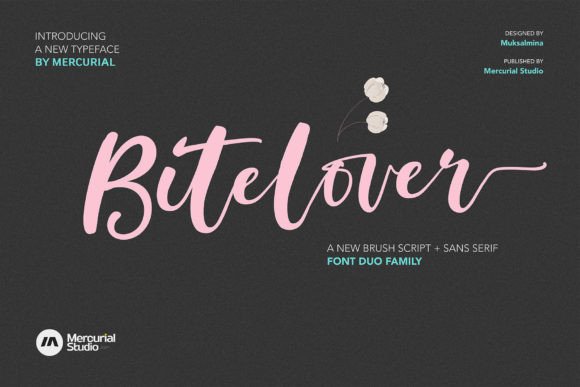
The Designer’s Delight: A Deep Dive into Bitelover Font
I’ll never forget the frustration of working on a design project, hours spent perfecting every detail, only to realize that the font I chose wasn’t quite right. The client wanted something modern, yet charming; elegant, yet approachable. If you’re a designer, crafter, or creative hobbyist, you’ve likely been there too. That’s when I stumbled upon Bitelover, a duo font that has become my go-to for many projects. In this article, I’ll share my experience with Bitelover, its features, and how to make the most of it in various design platforms.
First Impressions: What I Love About Bitelover
Bitelover is a modern and charming duo font that strikes the perfect balance between being too thin and too thick. Its exclusive design enhances the beauty of your design ideas, making it perfect for a wide range of projects. Here are some of the things I love about Bitelover:
- ✨ Balanced and elegant design: Bitelover’s unique blend of modernity and charm makes it suitable for various design projects, from branding to invitations.
- ✅ PUA encoded for easy access: Bitelover is PUA encoded, which means you can easily access all the alternate characters and swashes, giving you more creative freedom.
- 💫 Versatile and adaptable: Whether you’re designing for digital or print, Bitelover adapts seamlessly to different mediums and contexts.
While Bitelover is an excellent font, there are a few minor quirks to be aware of:
- 🤔 Learning curve for OpenType features: If you’re new to using OpenType features, it might take some time to get familiar with the various glyphs and stylistic alternates.
The Story Behind Bitelover
Bitelover was designed with the goal of creating a modern, yet charming font that would enhance the beauty of design projects. The designer aimed to strike a balance between elegance and approachability, making Bitelover suitable for a wide range of applications. While the real story behind Bitelover might be unknown, its design and features suggest a thoughtful and meticulous approach to typography.
| What is Bitelover font? | Bitelover is a modern and charming duo font designed to enhance the beauty of your design ideas. |